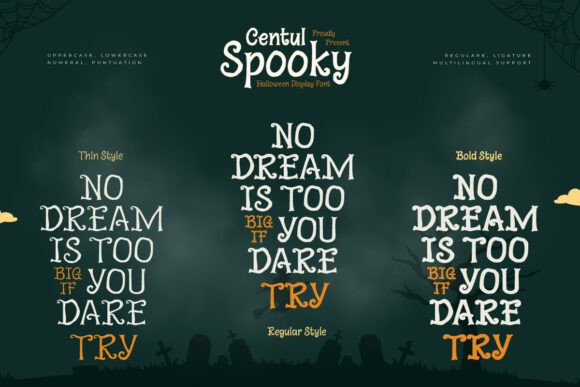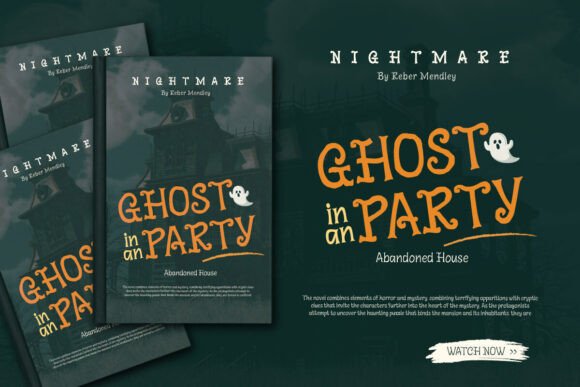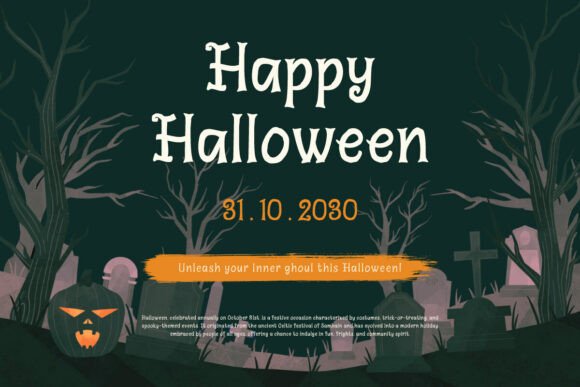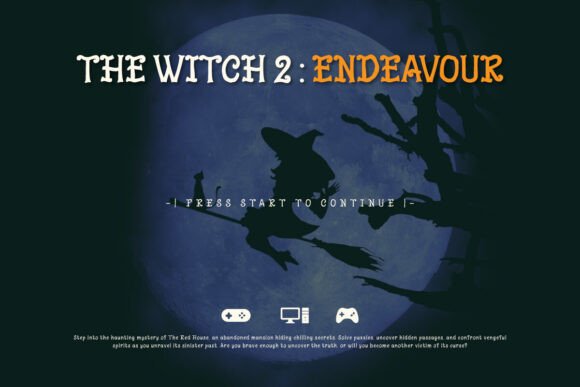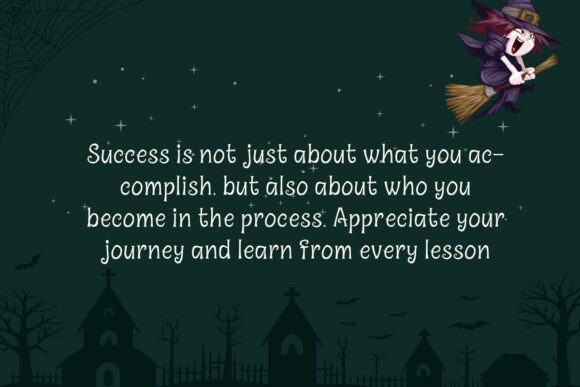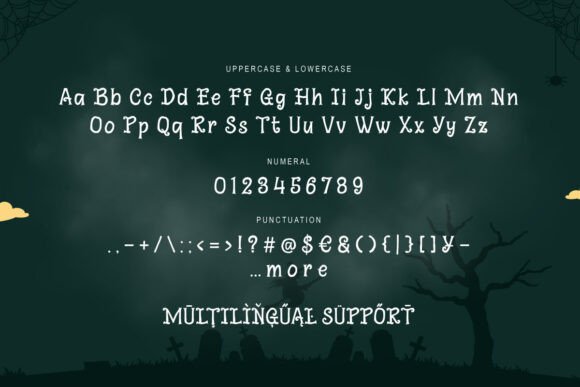
Unleash the Spooky Spirit: Introducing Centul Spooky Font
Are you ready to add a dash of spooky charm to your designs this Halloween season? Look no further than the Centul Spooky Font, a cheerful yet eerie typeface that’s perfect for creating fun and playful Halloween-themed designs. In this article, we’ll dive into the world of Centul Spooky and explore how this unique font can elevate your posters, party invitations, packaging, and more.
The Essence of Halloween in a Font
Centul Spooky – Halloween Font is a carefully crafted typeface that embodies the spirit of Halloween. Its unique and spooky letterforms are designed to add a fun and eerie feel to any project, making it an ideal choice for designers and crafters looking to create eye-catching and engaging designs. Whether you’re working on a Halloween party invitation, a spooky poster, or a product packaging design, Centul Spooky is the perfect font to bring your ideas to life.
What Makes Centul Spooky Special?
So, what sets Centul Spooky apart from other fonts? Here are a few key features that make this font a standout:
- Unique and Spooky Letterforms: Each letter in the Centul Spooky font is carefully designed to capture the essence of Halloween, with a perfect blend of whimsy and spookiness.
- Fun and Eerie Feel: The font’s playful and eerie design makes it perfect for creating Halloween-themed designs that are both fun and engaging.
- Versatile: Centul Spooky can be used for a wide range of projects, from posters and party invitations to packaging and more.
How to Use Centul Spooky in Your Designs
Using Centul Spooky in your designs is easy and straightforward. Here are a few tips to get you started:
- Pair it with Other Fonts: Combine Centul Spooky with other fonts to create a unique and eye-catching design.
- Experiment with Colors: Try pairing the font with bold and bright colors to add an extra layer of spookiness to your design.
- Play with Textures and Patterns: Add some texture and pattern to your design to give it a more eerie and whimsical feel.
Why Designers and Crafters Love Centul Spooky
Centul Spooky has quickly become a favorite among designers and crafters, and for good reason. Here are a few reasons why:
- High-Quality Design: The font is carefully crafted to ensure high-quality design and legibility.
- Perfect for Halloween: Centul Spooky is specifically designed for Halloween-themed designs, making it a go-to choice for designers and crafters looking to create spooky and fun designs.
Get Ready to Cast a Spell with Centul Spooky
In conclusion, Centul Spooky – Halloween Font is a unique and versatile typeface that’s perfect for adding a touch of spooky charm to your designs. With its cheerful yet eerie design, this font is sure to capture the essence of Halloween and inspire you to create fun and playful designs. Whether you’re a designer, crafter, or simply someone who loves Halloween, Centul Spooky is a must-have font for any creative project.